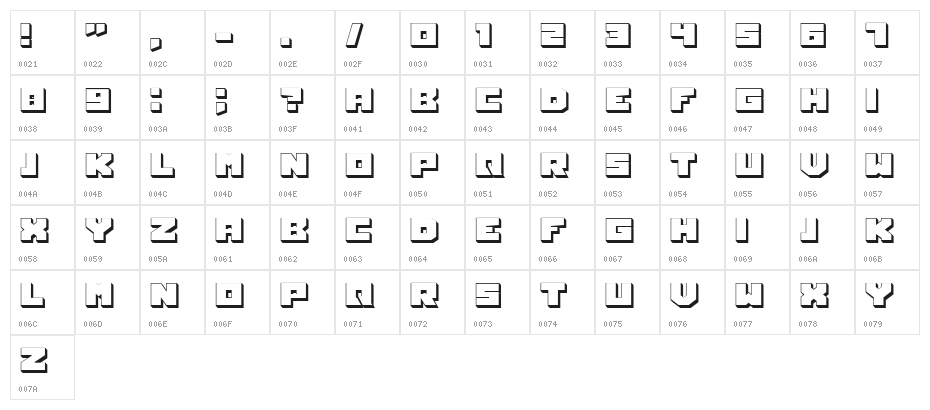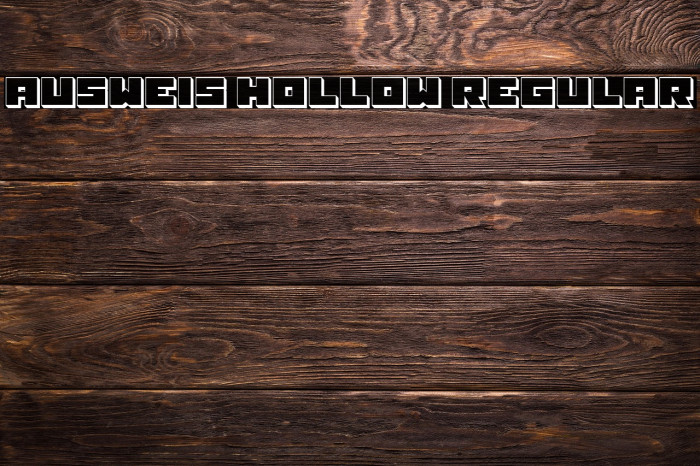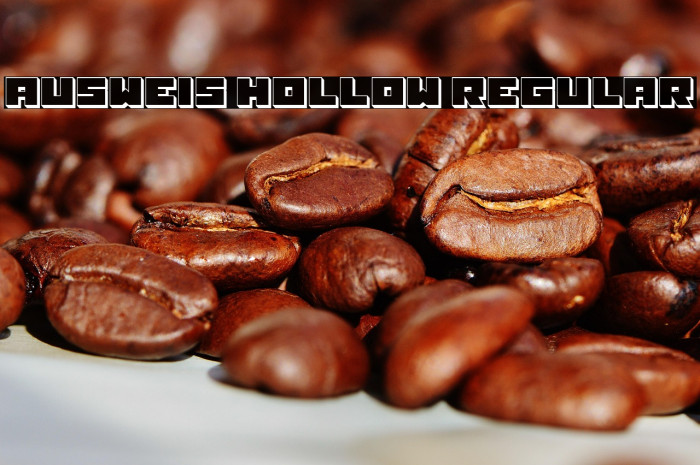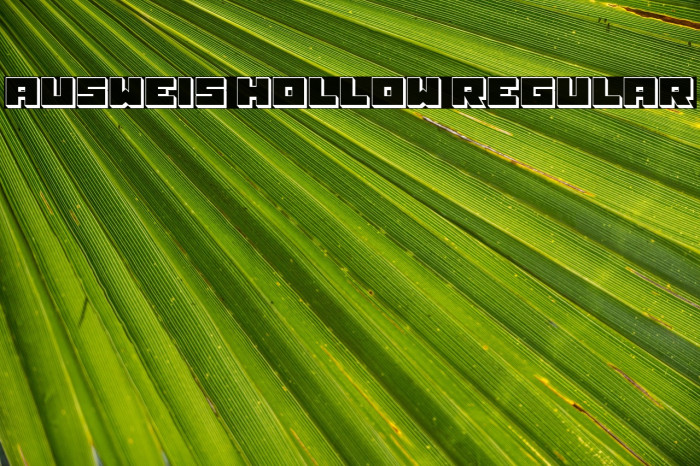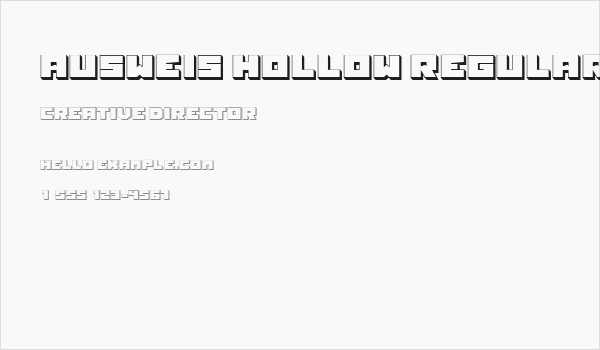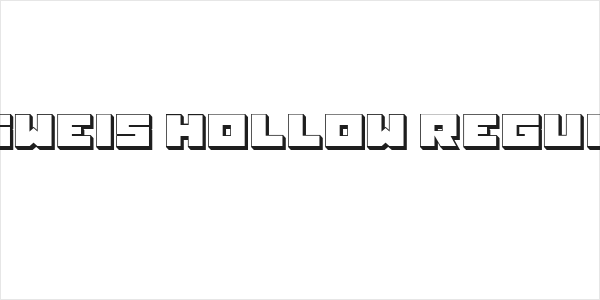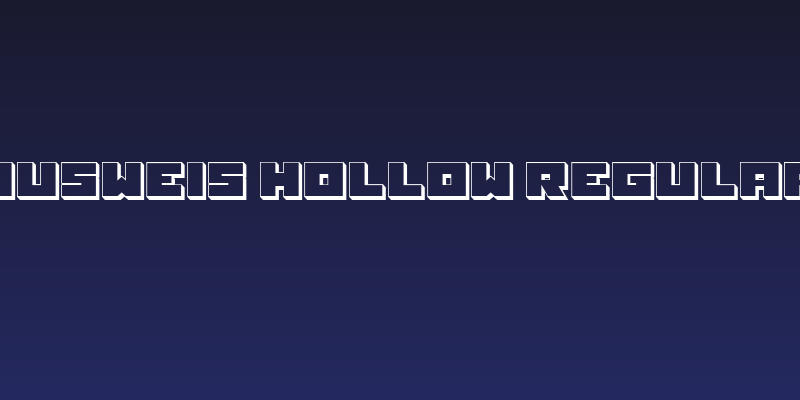
Ausweis Hollow Regular Font
Ausweis Hollow Regular Description
This font features a bold, geometric design with a hollow interior, giving it a striking and modern appearance. The characters are constructed with thick, uniform strokes that create a strong visual impact. The hollow centers add a unique dimension, making the letters appear three-dimensional. This style is reminiscent of retro and futuristic designs, combining elements of both to create a versatile typeface. The uppercase letters are consistent in height and width, providing a balanced and cohesive look. The numbers and special characters follow the same design principles, ensuring uniformity across all glyphs.
| Proposed Projects | Ideal for projects that require a bold statement, such as posters, logos, and headlines. Its unique style can also be used in branding for tech or gaming industries. |